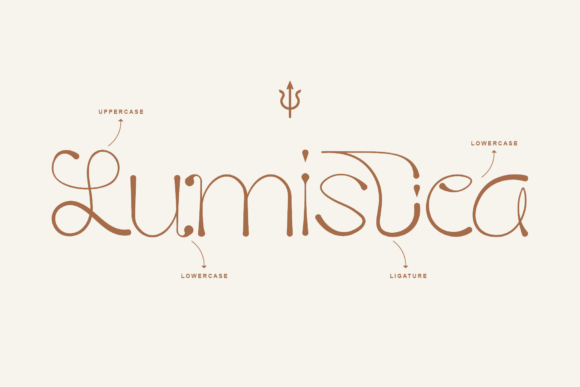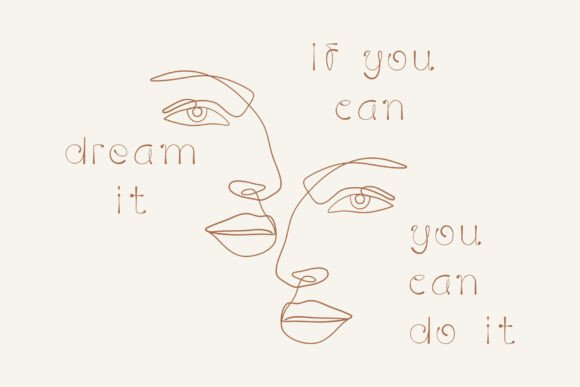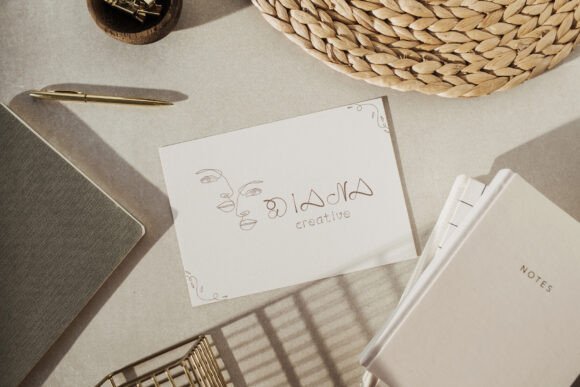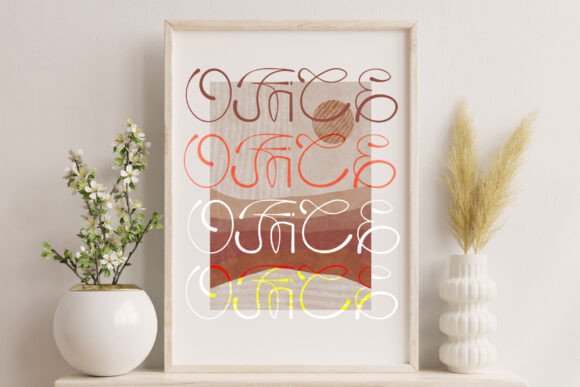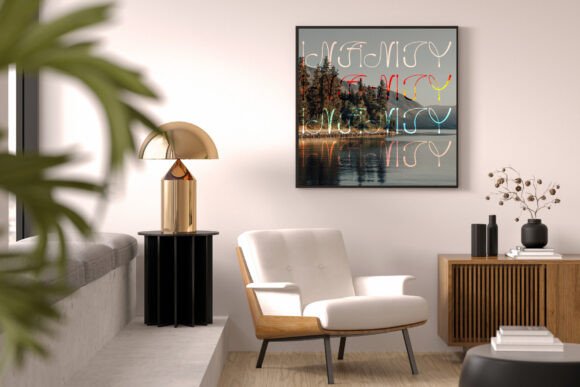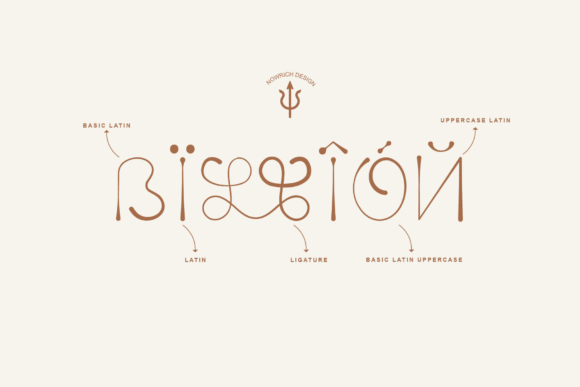
Introduction to Lumistica Font
As a designer, have you ever stared at a blank canvas, struggling to find the perfect font to bring your creative project to life? The excitement of starting a new design can be exhilarating, but it’s often the small details that make all the difference. For those seeking to elevate their designs, we’re excited to introduce the Lumistica Font – a meticulously crafted masterpiece that will revolutionize your design process.
With its unique blend of timeless references and modern design elements, Lumistica Font is the ultimate design resource for creatives. Whether you’re working on a high-quality branding project, designing an invitation card, or creating a stunning poster, this font is sure to make your designs stand out effortlessly. And the best part? It’s available for free download, allowing you to experiment with its captivating uppercase and lowercase characters without any restrictions.
Key Features of Lumistica Font
- High-quality design resource suitable for creative projects, offering a unique and modern aesthetic.
- Includes a range of font sizes and styles, making it an ideal choice for various design needs and creative projects.
- Designed with high resolution, ensuring crisp and clear text display in both digital and print media.
- Perfect for use in logos, typography, and other design elements, adding a touch of sophistication to any creative project.
Honest Review: Lumistica Font
I recently had the opportunity to work with the Lumistica Font, and I must say, it’s been a delightful experience. The font is a fantastic design resource for any creative project, and its free download has made it easily accessible to designers of all levels.
One of the standout features of the Lumistica Font is its high-quality, transparent background, which makes it perfect for designing against any background. This has been a game-changer for me, especially when working on projects with complex layouts.
- What works well: ✨ The font’s sleek and modern design, ✨ its wide range of weights and styles, and ✨ the ease of use make it a joy to work with.
Overall, I’m thoroughly impressed with the Lumistica Font. Its high quality, versatility, and free download make it an excellent choice for designers working on creative projects. I would definitely recommend it to anyone looking for a reliable and stylish font.
Use the Lumistica Font in combination with a transparent background to create a modern and sleek design. Experiment with different font sizes and styles to add visual interest to your project. You can also use the font in conjunction with other design elements to create a cohesive and professional-looking design.
The Lumistica Font is perfect for any creative project, including blog posts, social media graphics, and marketing materials. It’s also great for use in presentations, reports, and other business documents where a high-quality font is required.